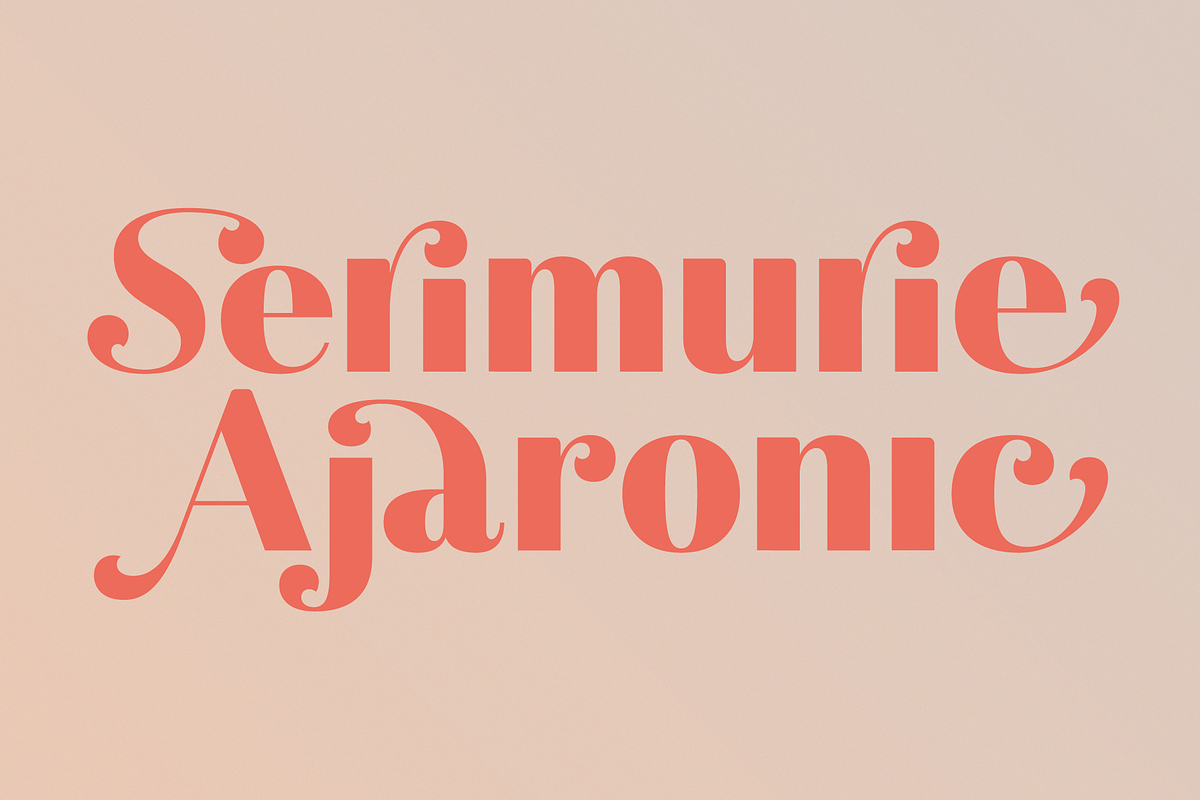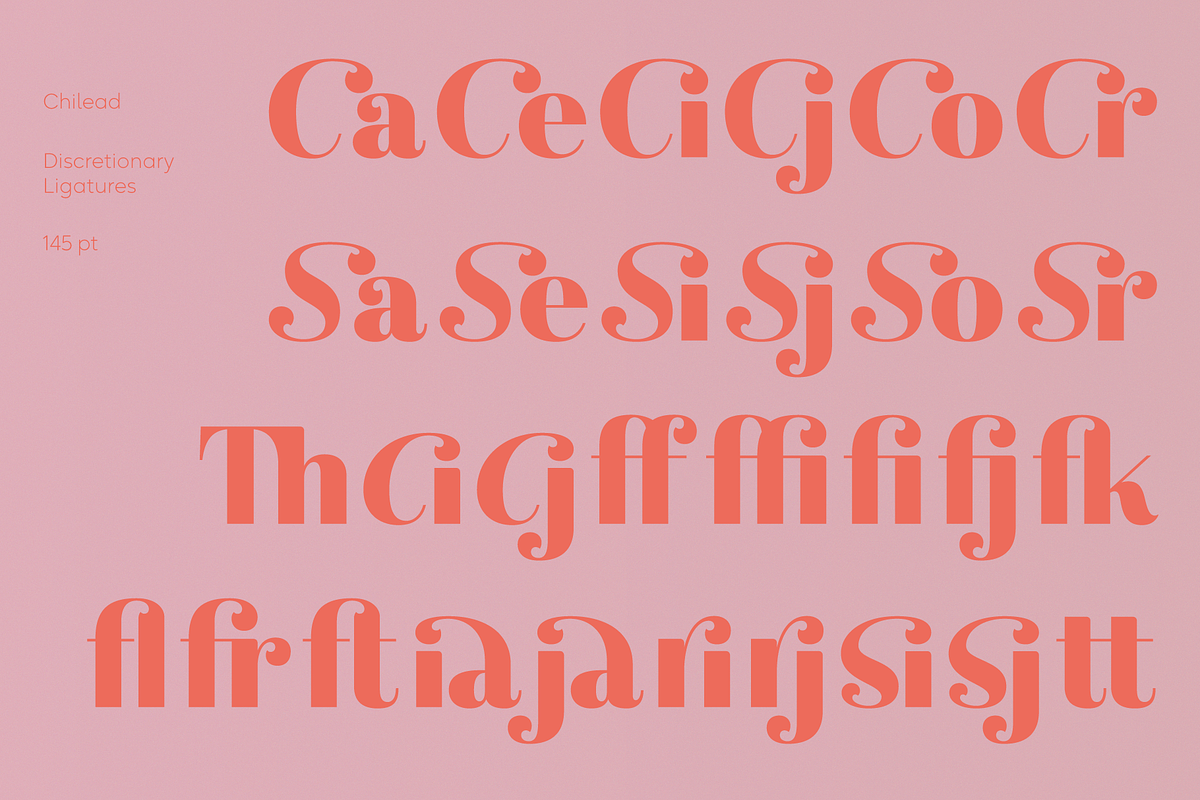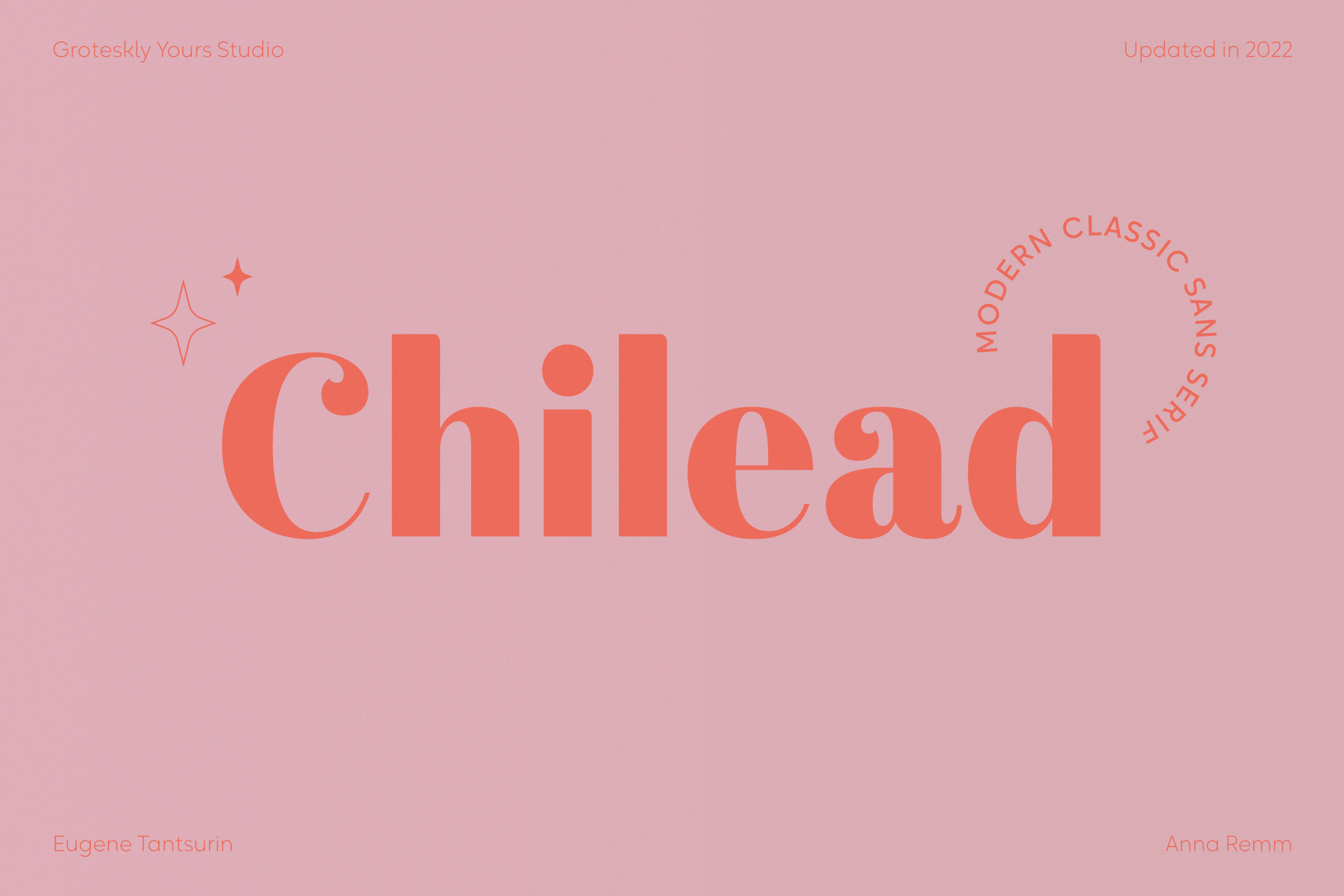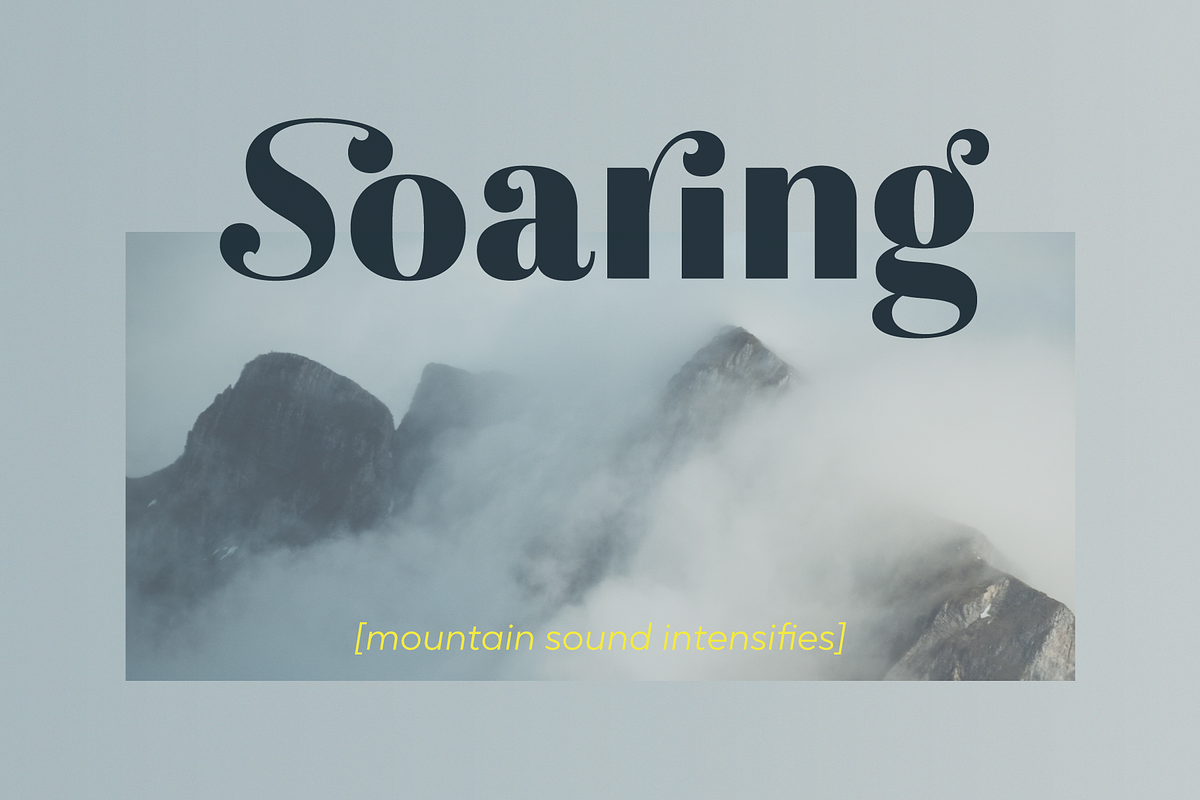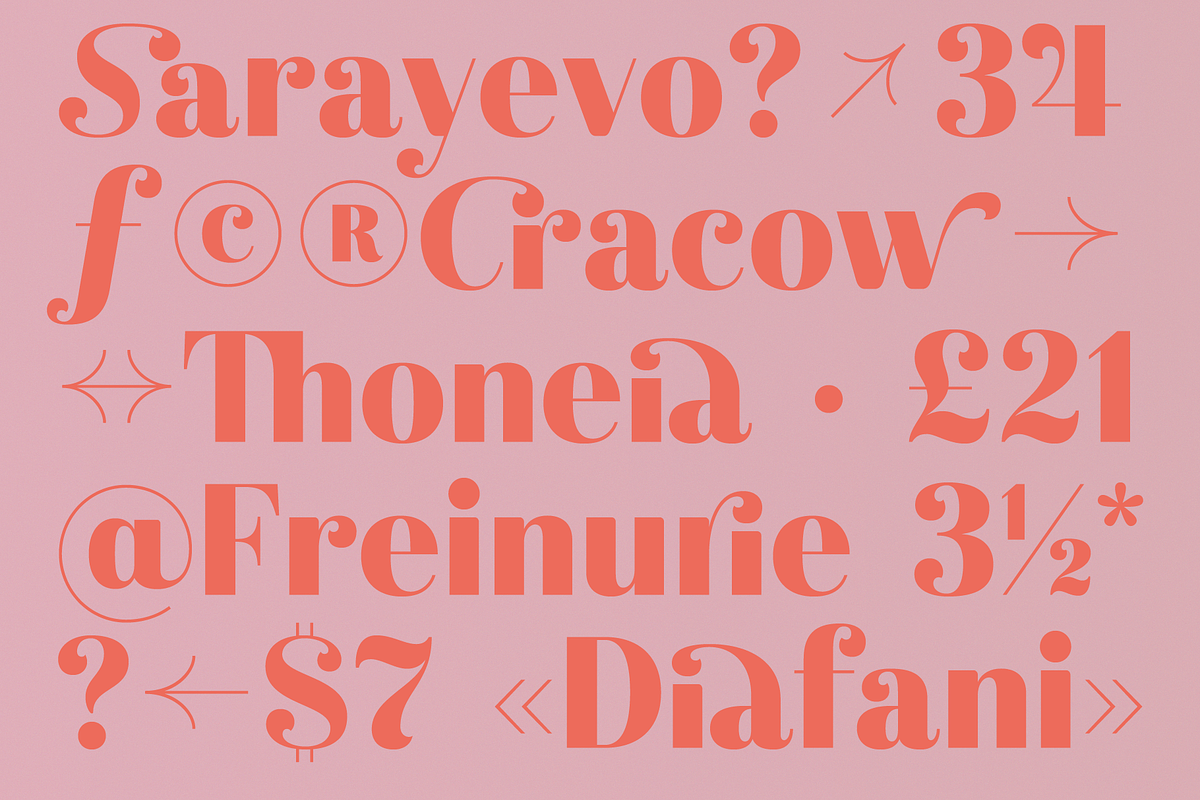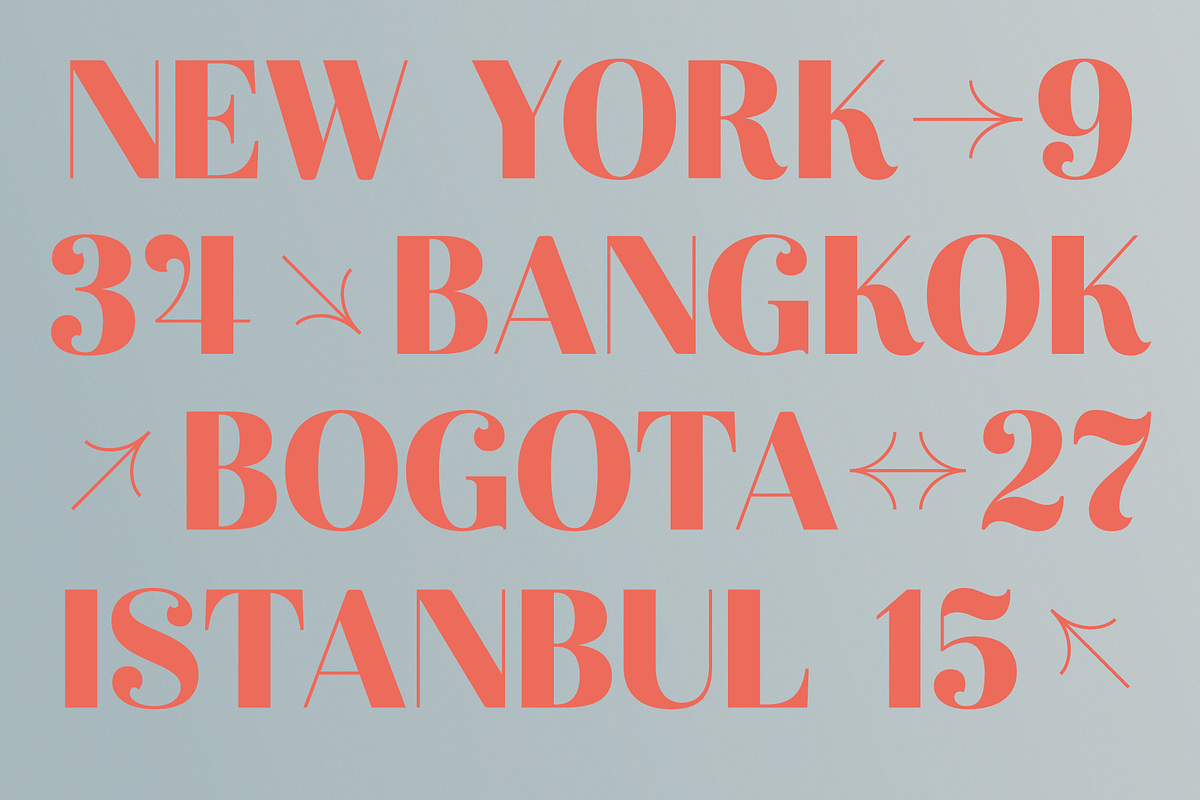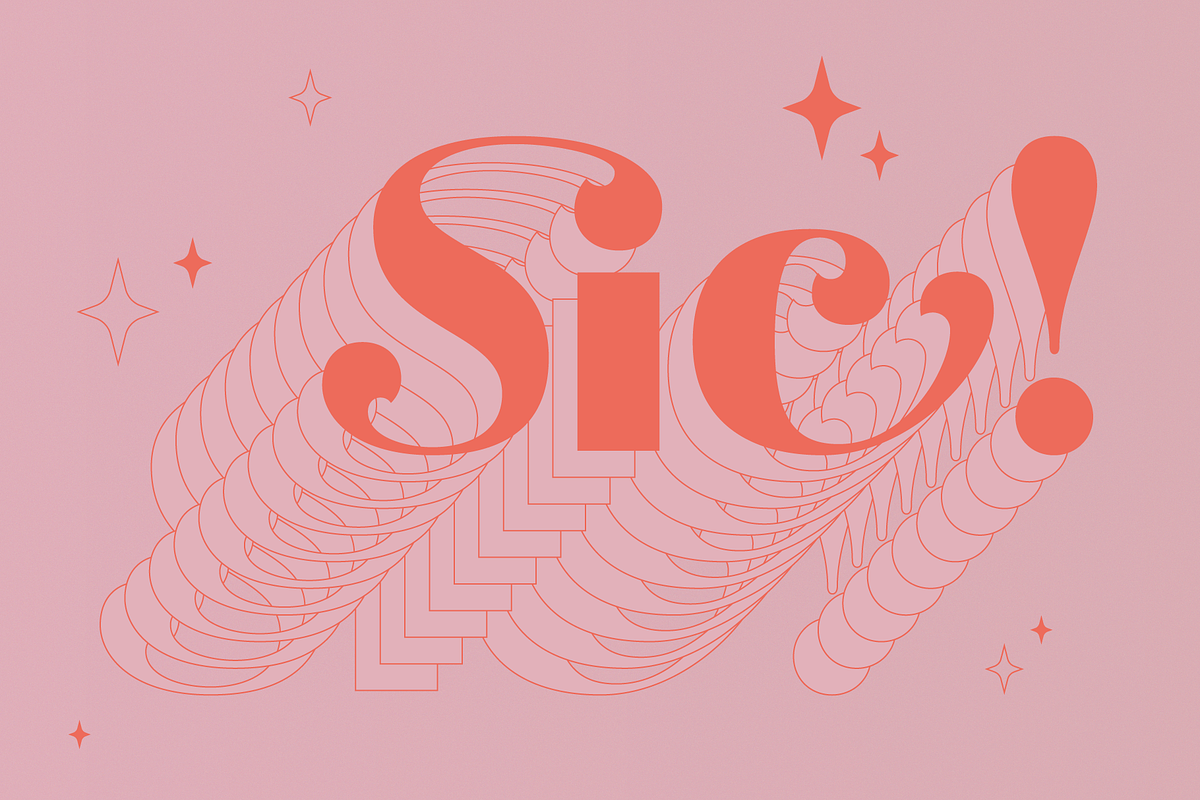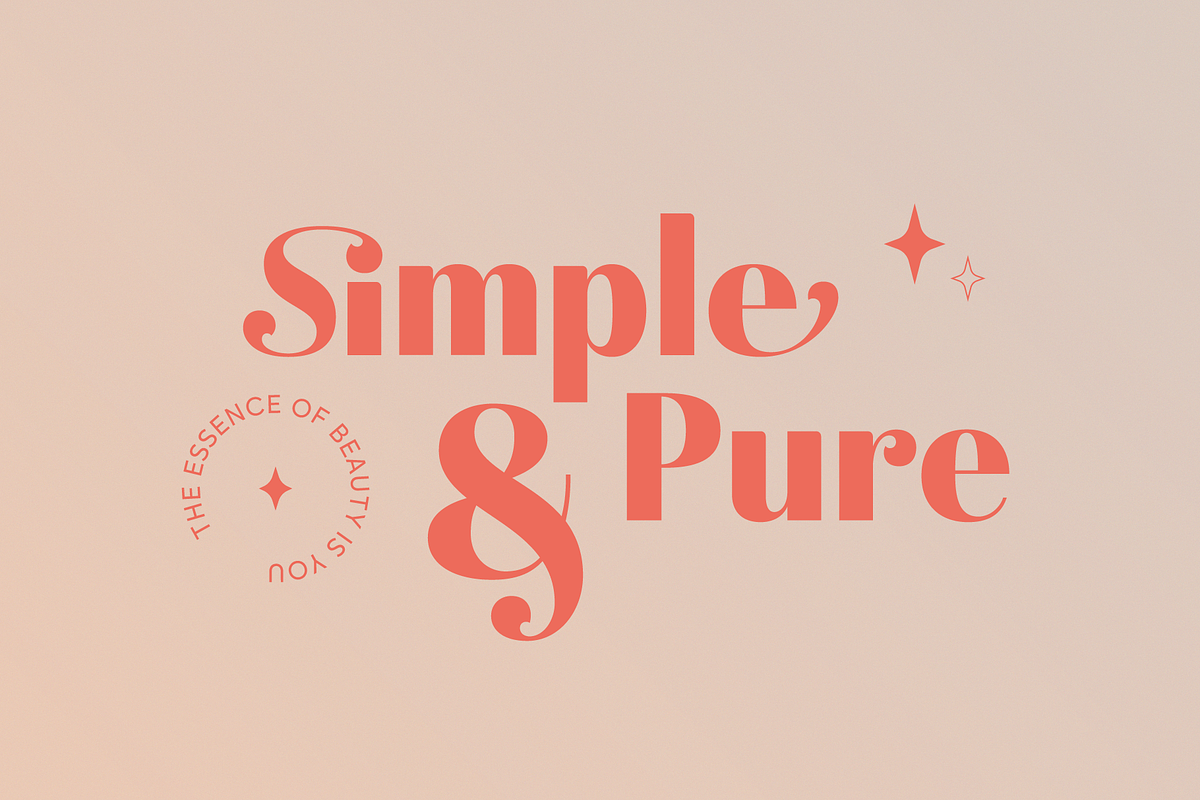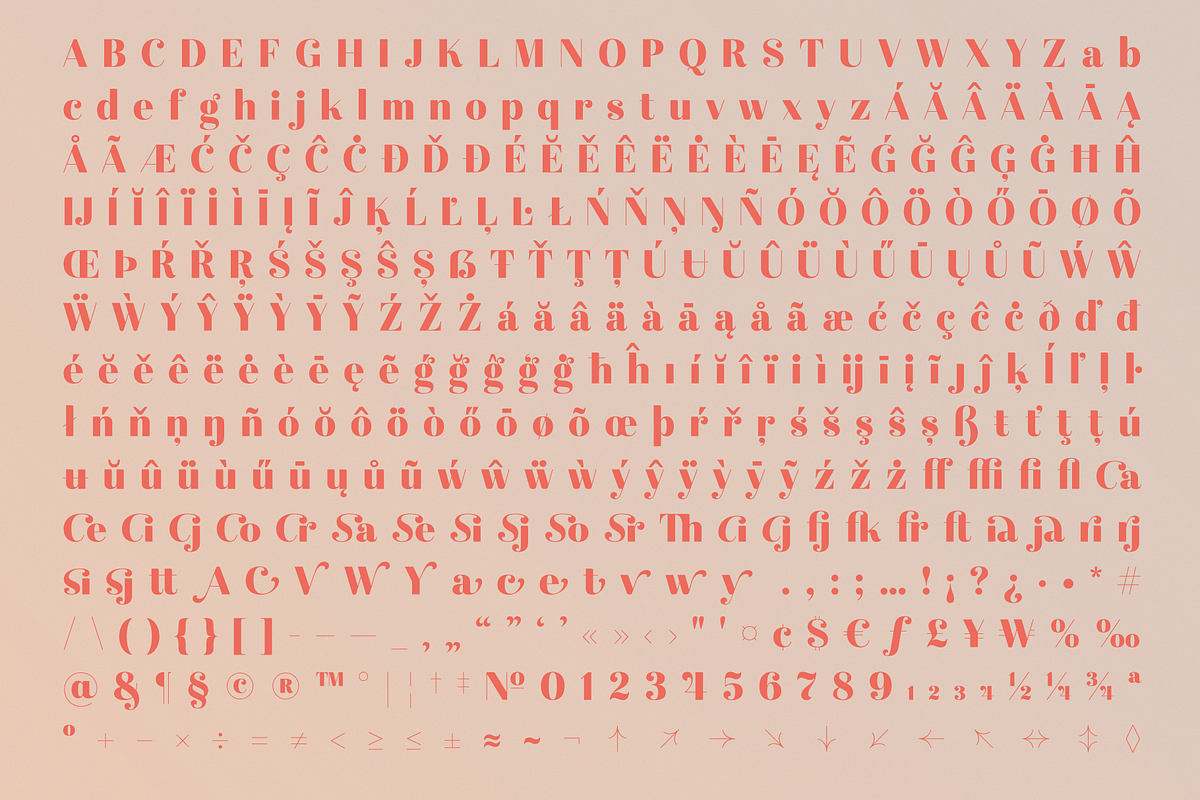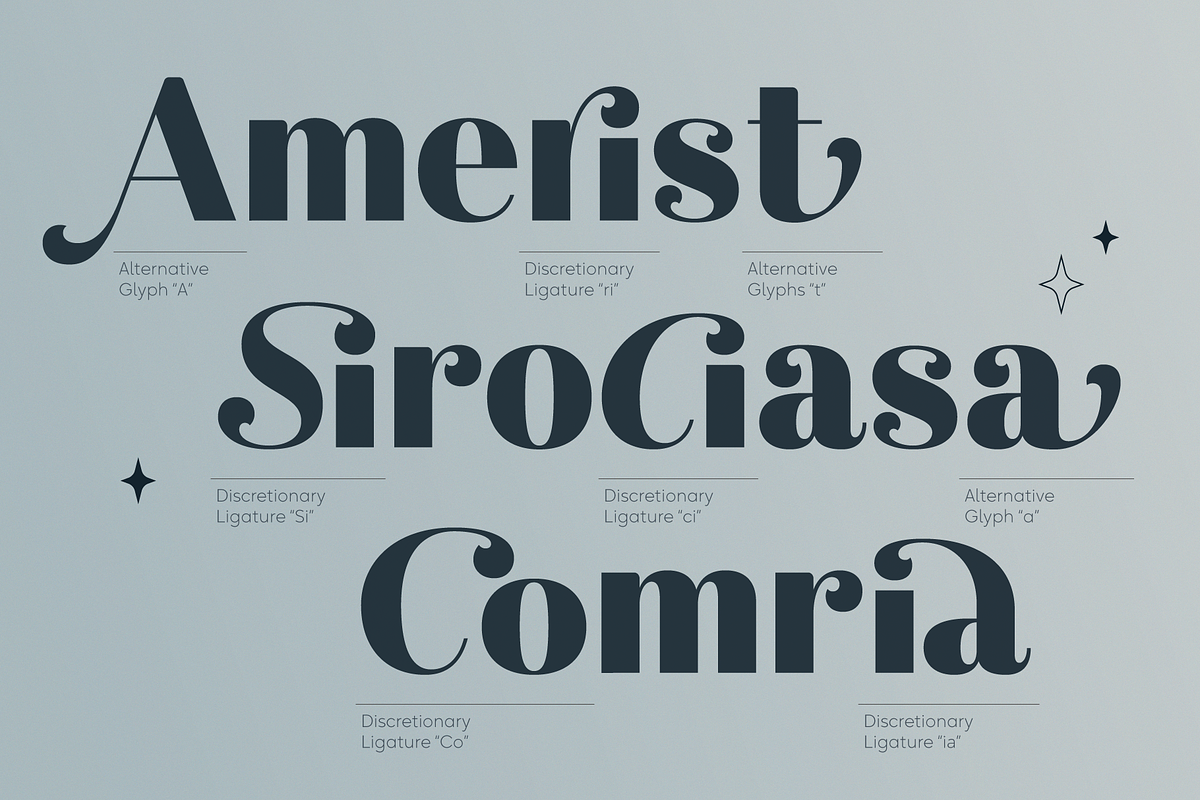
Chilead — Classic Sans Serif Font
Chilead Classic Sans Serif
Chilead is reminiscent of the early days of magazine publishing. Its elegant curves, high contrast and all-round heartwarming feel are perfect for art projects and typography across all mediums. Chilead is a sans serif font that looks great in titles, when used in larger sizes – but is not out of the place in a text either, which makes it a perfect choice for artists and designers who pursue not only the aesthetic qualities of the font, but also its functionality.
Originally designed in 2019 and fully updated and expanded in 2022, Chilead offers users a large set of ligatures (both standard and discretionary) and a number of alternative forms for letters (such as a, v, w, y, etc).
Chilead comes equipped with 600+ glyphs, which covers most of Latin-based scripts. Carefully kerned, Chilead is ready to be used in any project that requires a typeface that combines unique and stylish letterforms with a modern feel.
Main Features of Chilead Sans Serif?
• Retro/Vintage Feel
• Great Language Support
• Tons of ligatures
• Large character set (600+ glyphs)
What's new in Chilead 3.0 Update (April 9, 2022)
• Major update on glyphs’ outlines.
• Cosmetic tweaks.
• Added a ton of discretionary ligatures.
• Fully refurbished kerning.
• New bowl shape (now with cleaner curves).
• Added a new stylistic set (smoother curves in bowls) for some letters.
• Fully compatible with all Western, Central and South Eastern European languages.
• Re-drawn, better adjusted diacritics.
• Updated OpenType features.
• Added new punctuation.
• Fixed occasional overlaps.